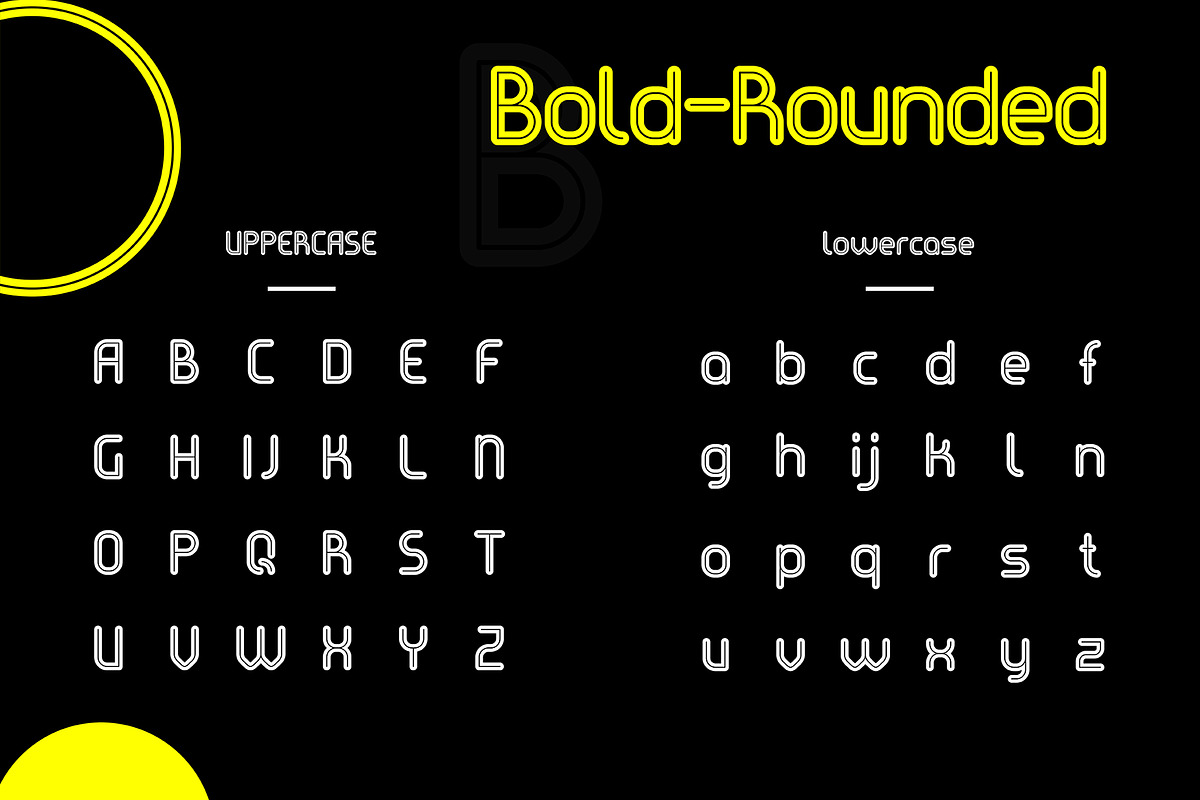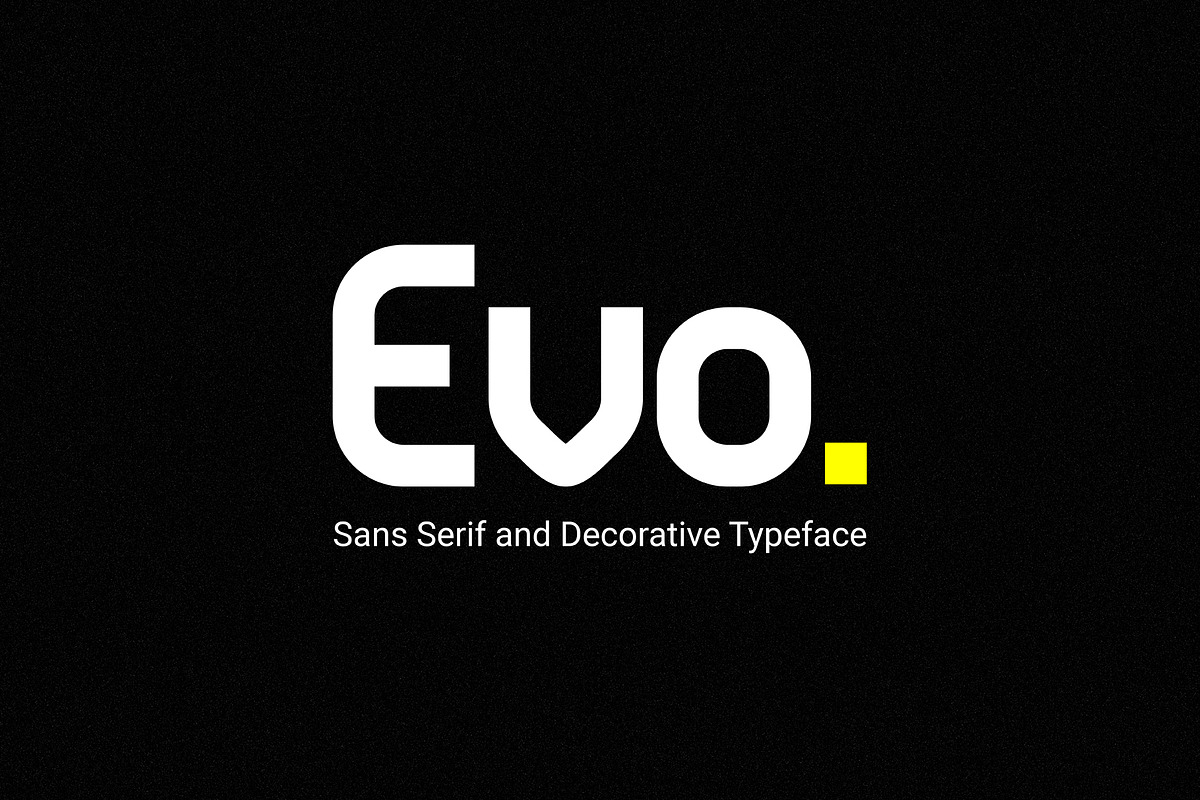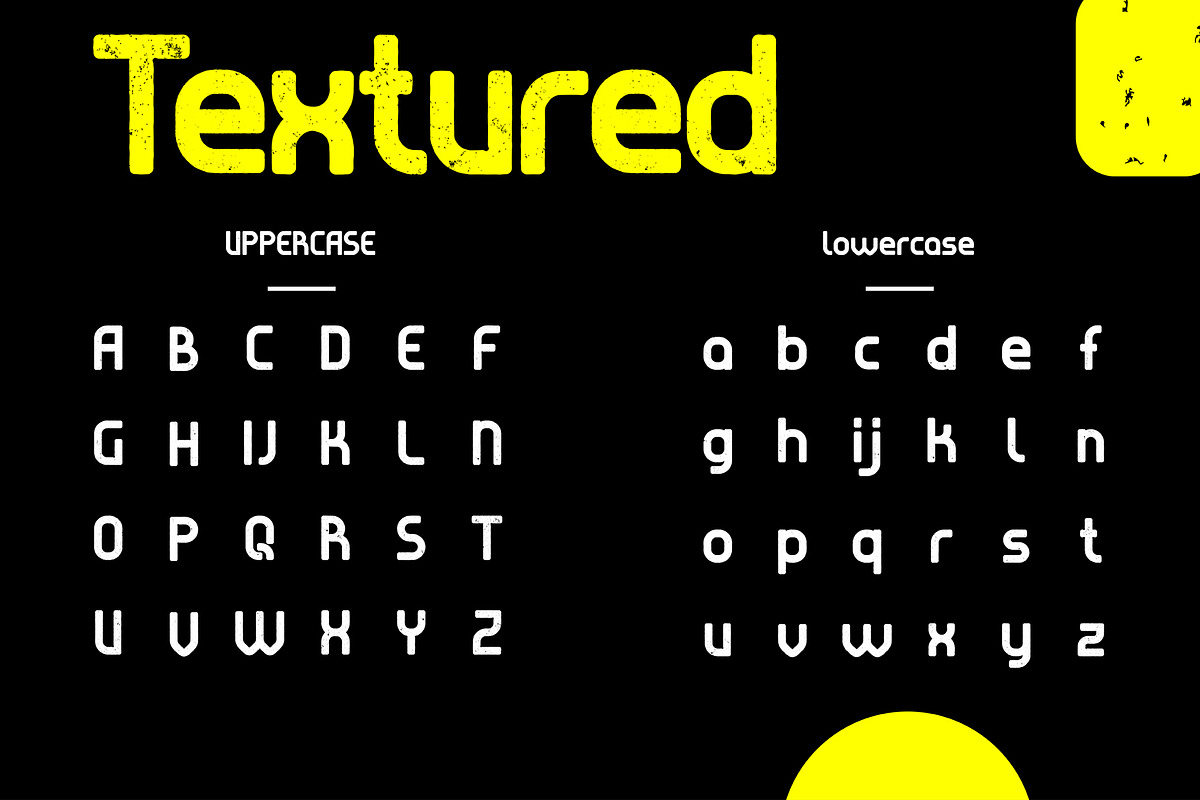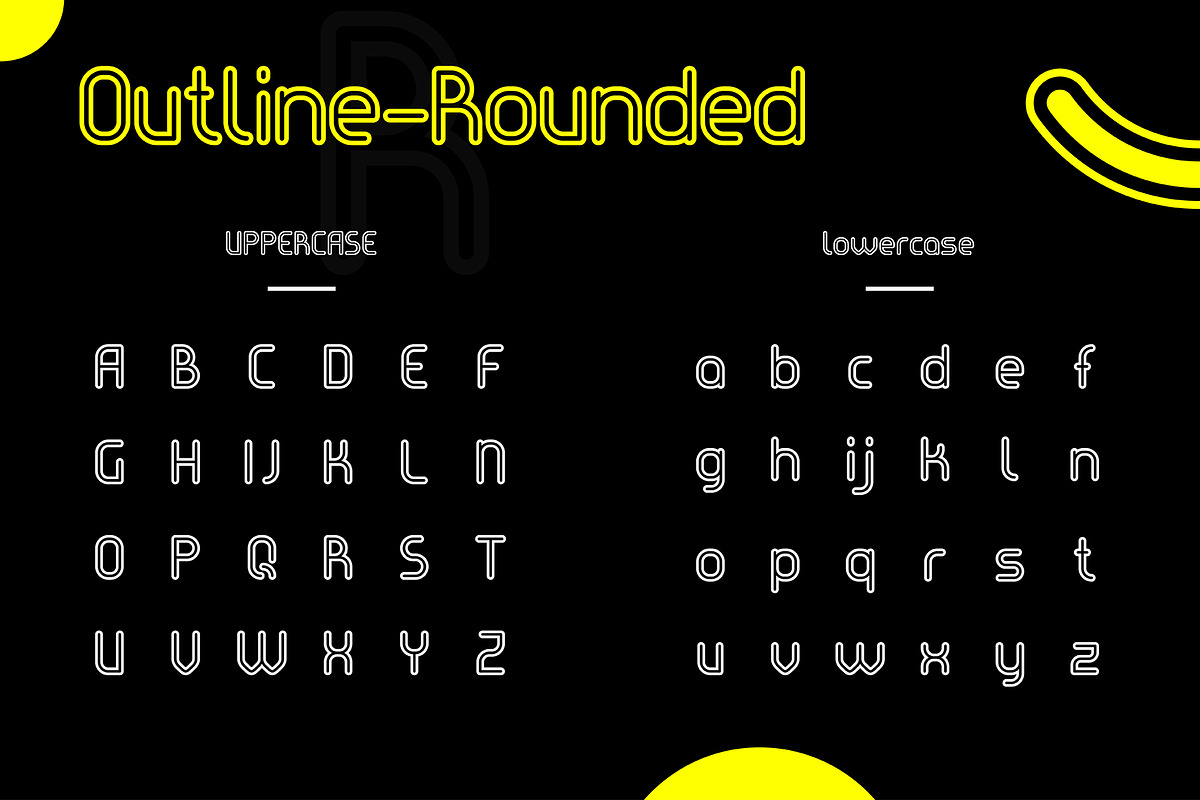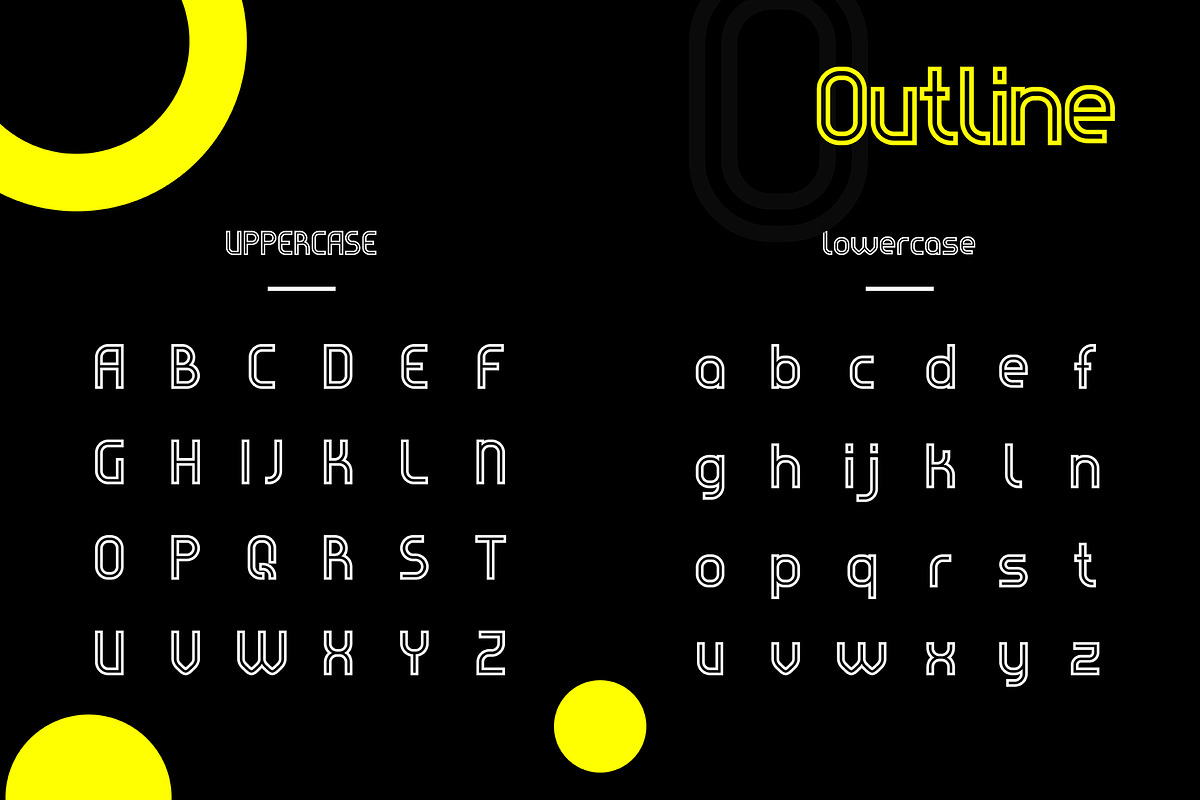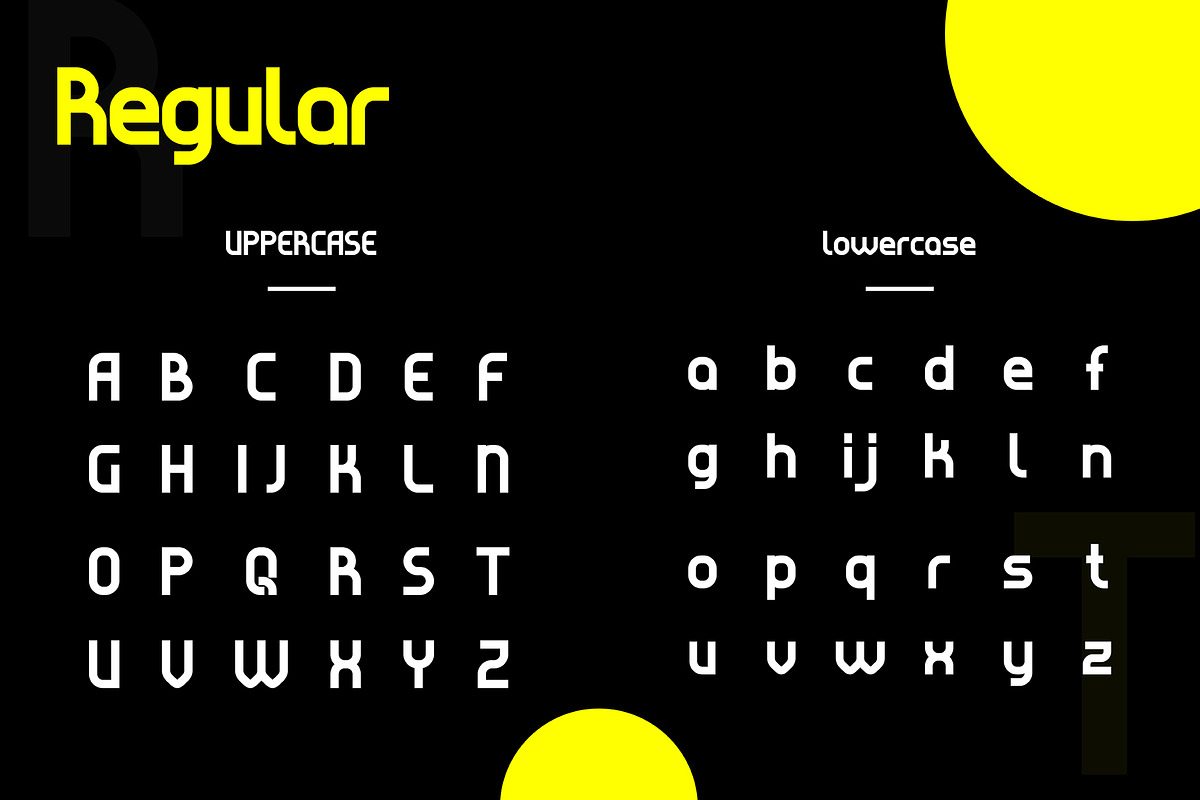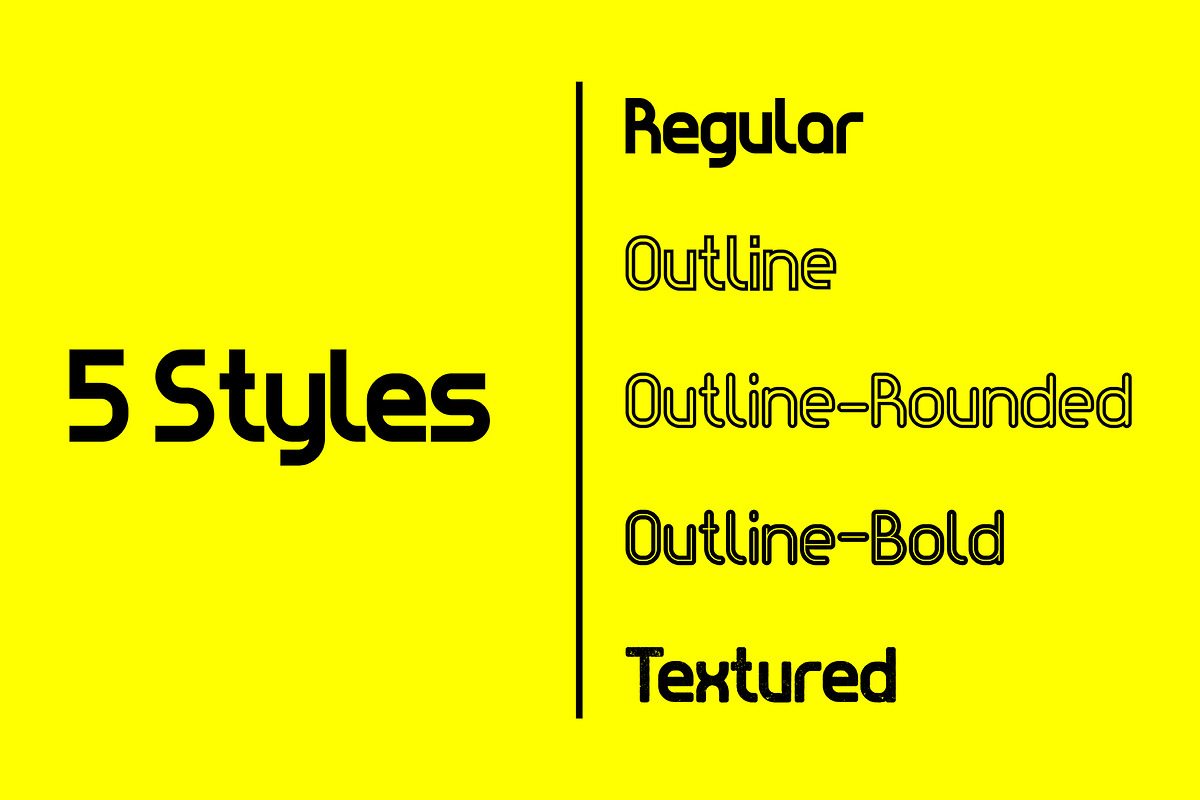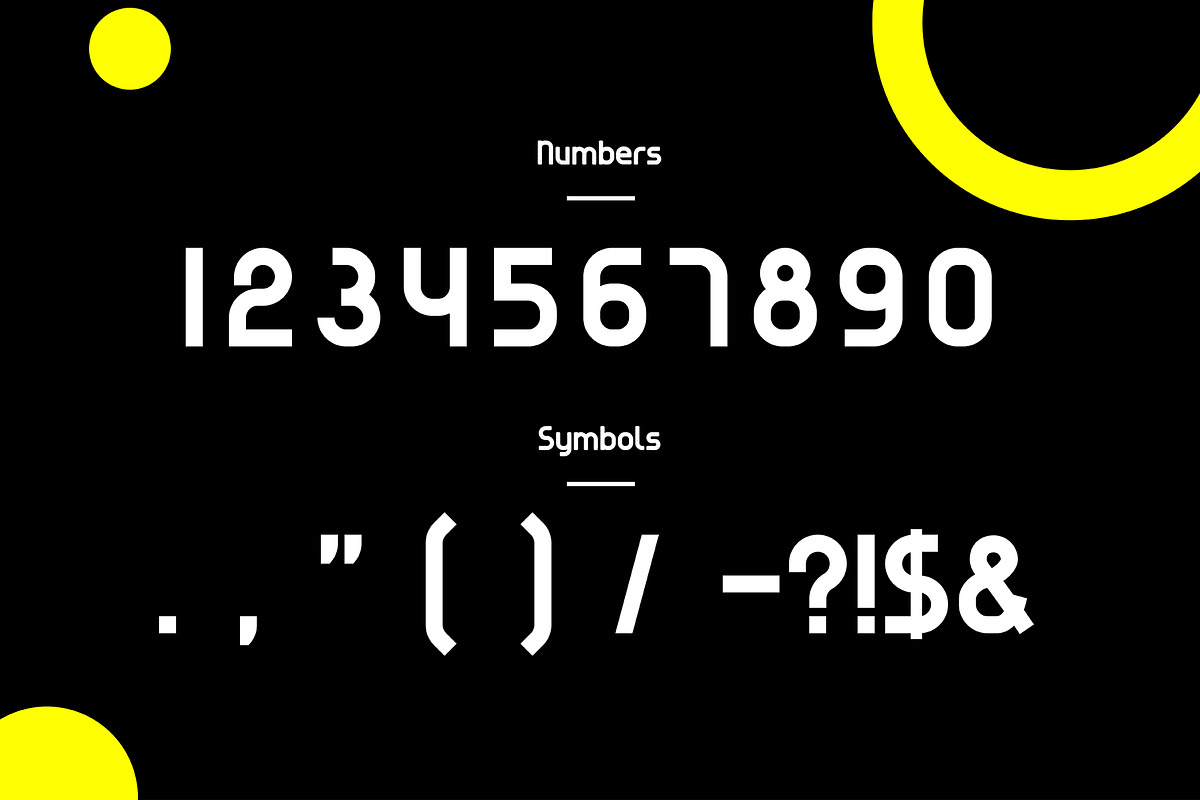
Evo - Sans & Decorative Typeface
Evo is a unical font family. Strong capitals and a smooth, open lowercase are effective in a variety of applications. The geometric, near-monoline construction lends Evo a classic durability reminiscent of the 1970s, tempered by softened edges and vibrant shapes.
- Strong capitals and a smooth, open lowercase are effective in a variety of applications.
- Evo Regular
- Evo Bold Outline
- Evo Outline
- Evo Outline Rounded
- Evo Textured